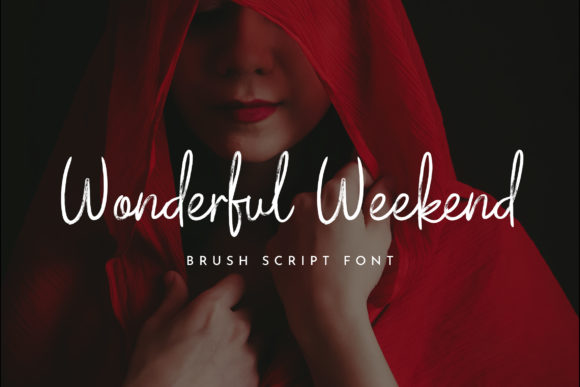
Unleash the enchantment of your emails with Wonderful Weekend, the font that captivates all who behold it. A thin, simple, and dainty brushed script font, Wonderful Weekend embodies elegance and sophistication. Let your words dance across the screen with a grace that leaves a lasting impression.
Immerse yourself in the world of Wonderful Weekend and discover a font that breathes life into your email signature. Its incredibly adaptable style allows you to effortlessly create sweet wedding invitations that exude romance and charm. Transform your stationary art into masterpieces that reflect your unique personality. Captivate your audience with eye-catching social media posts that demand attention.
With Wonderful Weekend, you hold the power to craft digital masterpieces that speak volumes. Its delicate strokes and flowing lines add a touch of whimsy and wonder to every word you type. Elevate your email signature to new heights, making it a reflection of your impeccable taste and attention to detail.
Indulge in the versatility of Wonderful Weekend and let your imagination run wild. Use it to design logos that exude a timeless appeal, or create branding materials that leave a lasting impression. The possibilities are endless, limited only by your creativity.
Embrace Wonderful Weekend today and elevate your digital presence to new heights. Allow your emails to radiate with charm, your social media posts to captivate, and your designs to inspire. Experience the magic of Wonderful Weekend and let your creativity flourish.